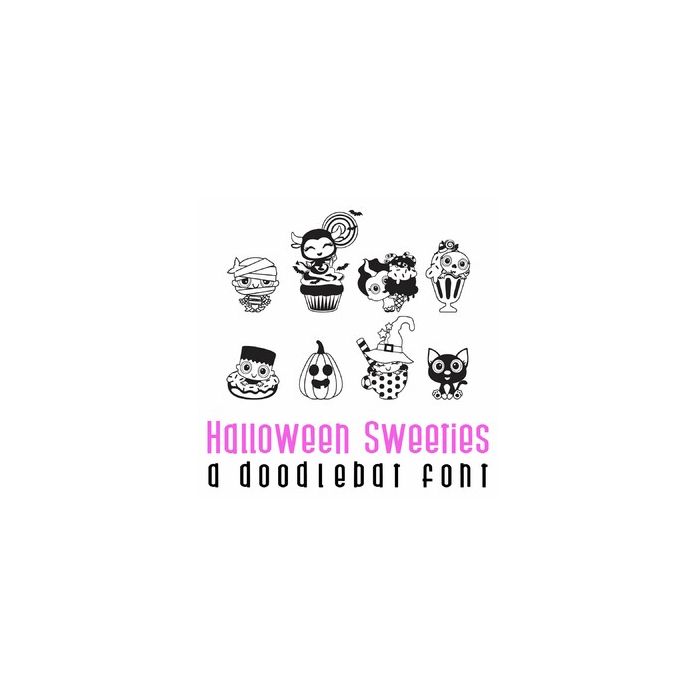
This fun doodlebat font features 26 adorable Halloween characters and their treats. Perfect for Halloween, cards, gifts, decor, crafts, scrap book pages, planner stickers and more!